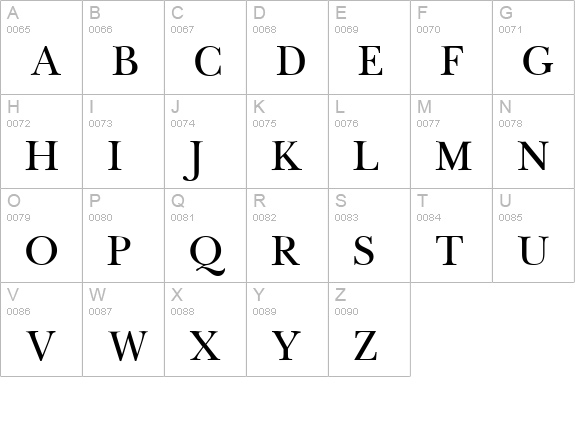
New Regular is the standard, neutral variant in the New typeface family \xE2\x80\x94 well suited to general body text, paragraphs, and standard typographic work.
Introducing New Regular font, a versatile and modern typeface designed to elevate your design projects to new heights. With its clean lines and balanced proportions, this font exudes a sense of sophistication and professionalism. Whether you're creating a sleek branding piece or a striking poster, New Regular font will effortlessly make your text stand out. The best part? New Regular font is available for free download at FontsMarket.com. You can easily access this sleek and stylish font to enhance your designs without any cost. Don't miss out on the opportunity to add this elegant typeface to your font library today!